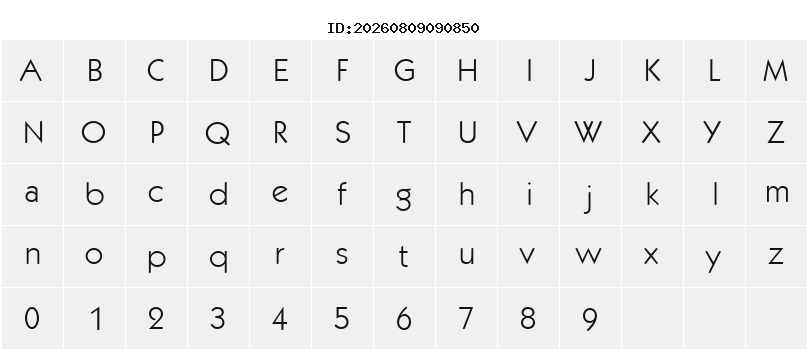
Performa Book SSi.ttf is a modern, elegant sans-serif font designed for ultimate readability and visual harmony. Perfect for branding, headlines, web design, and print materials.